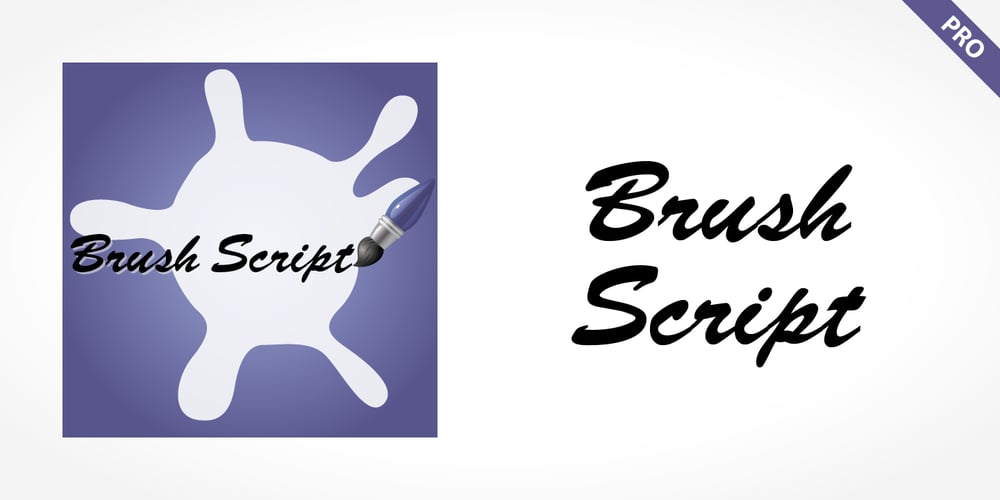
Brush Script Pro Font Family was designed by published by SoftMaker. Brush Script Pro contains 1 styles and family package options. Robert E. Smith designed this typeface for American Type Founders in 1942. Brush Script is perfect for display work where an informal, handwritten style is desired, for example in signage and on posters. SoftMaker’s Brush Script Pro typeface comes with a huge character set that covers not only Western European languages, but also includes Central European, Baltic, Croatian, Slovene, Romanian, and Turkish characters. Case-sensitive punctuation signs for all-caps titles are included as well as many fractions, an extensive set of ligatures, and separate sets of tabular and proportional digits.